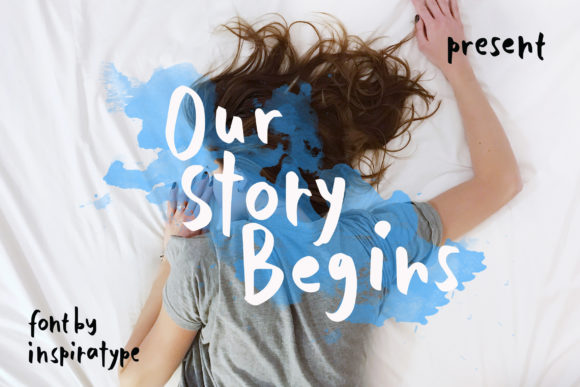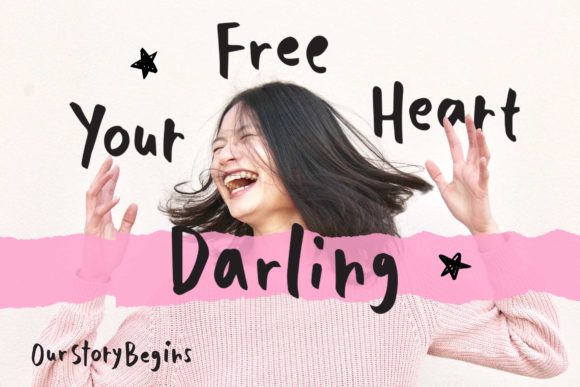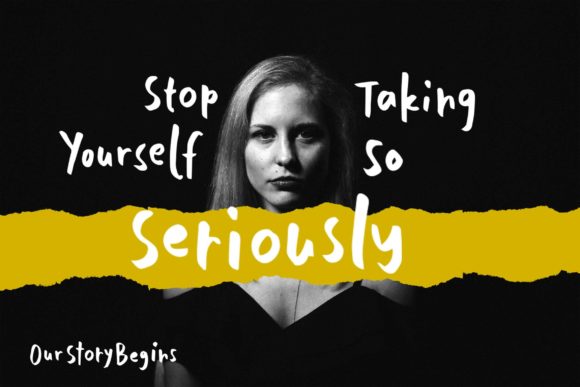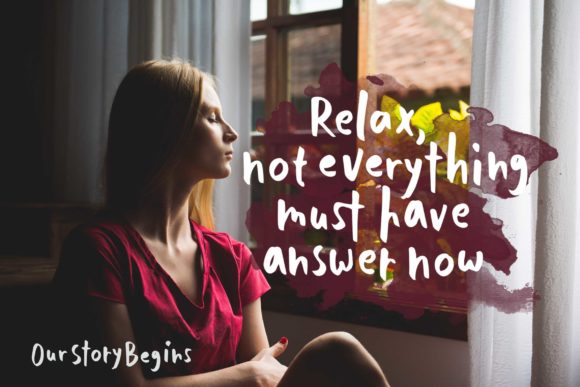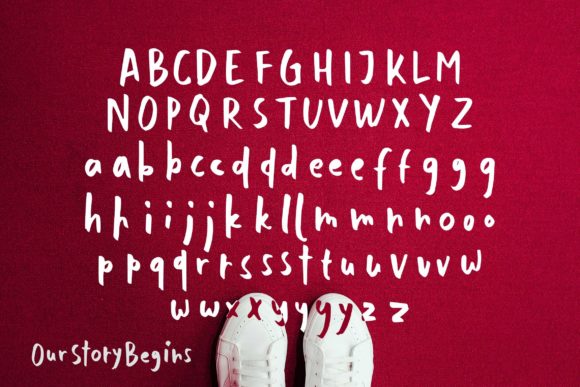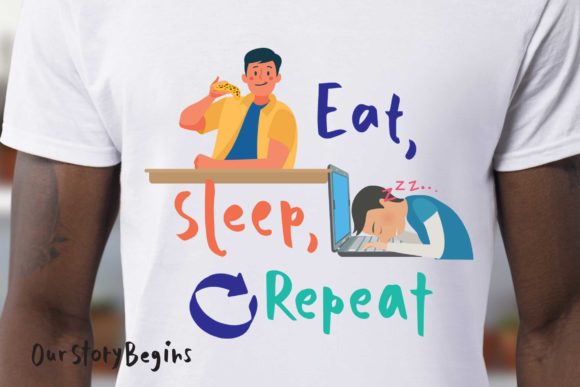
Our Story Begins Font
About Our Story Begins Font
Our Story Begins is a cute and casual handwritten font with an incredibly friendly feel. Whether you’re looking for fonts for Instagram or calligraphy scripts for DIY projects, this font will turn any creative idea into a true piece of art!